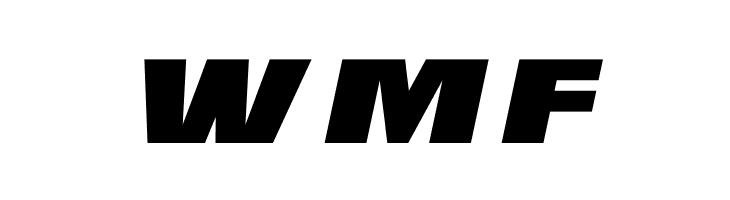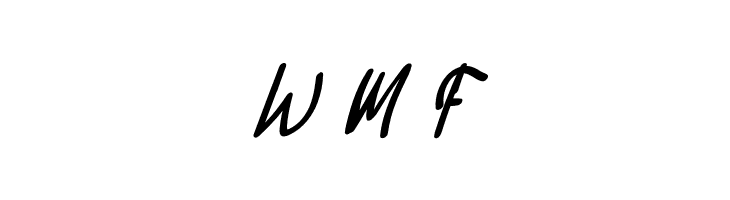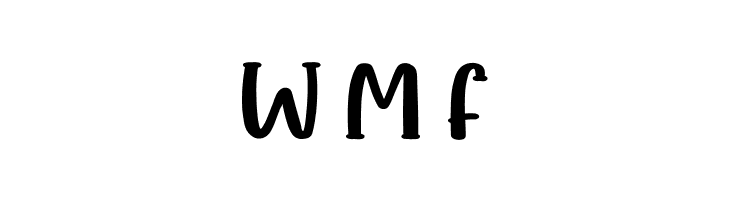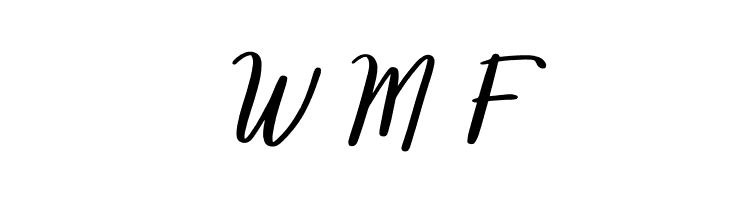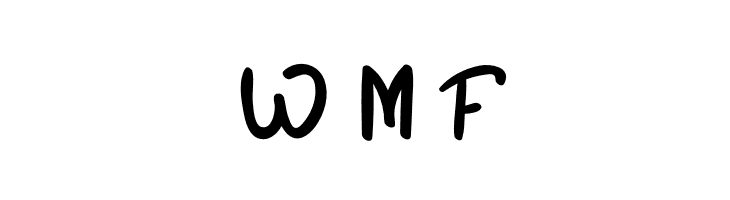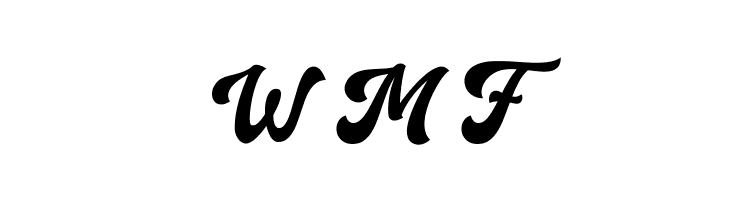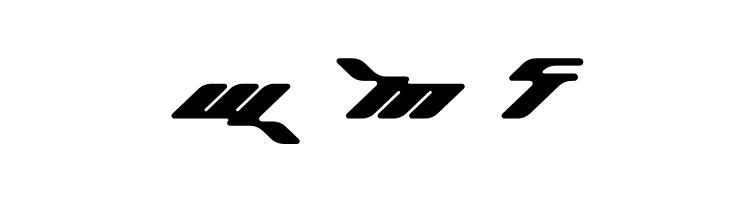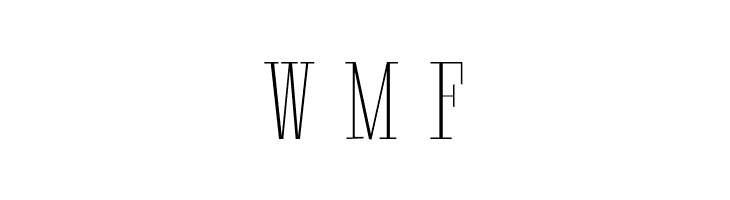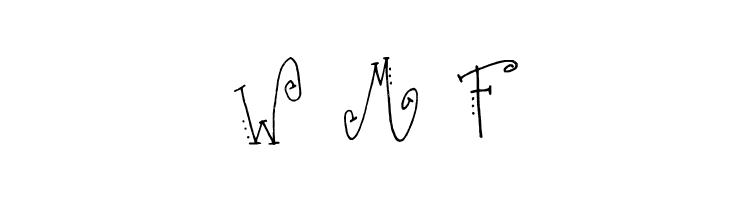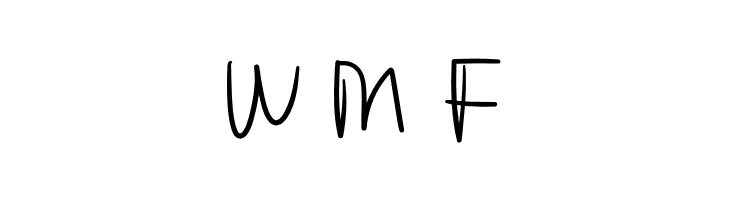
A lively and elegant script font with fluid, connected letters.
A refined serif font with thin strokes and elongated letterforms, exuding elegance.
A modern, geometric sans-serif font with clean lines and a minimalistic style.
A futuristic and geometric font with clean lines and symmetrical shapes.
A futuristic, italicized font with sleek, angular letters.
A bold, geometric font with a futuristic, robotic style.
A bold, italicized, futuristic font with geometric angles and a dynamic style.
A bold, playful font with rounded, hand-drawn characters.
A bold, textured font with a rugged, distressed appearance.
A bold, brush-style font with dynamic, hand-painted strokes.
A playful handwritten font with fluid strokes and a casual style.
A bold, graffiti-inspired font with a raw, hand-painted look.
A rough, hand-drawn font with a dynamic brush-like texture.
A playful, rounded font with a hand-drawn, casual style.
An elegant and decorative font with intricate swirls and flourishes.
A bold, flowing script font with elegant curves and swashes.
A bold, playful script font with a whimsical, hand-drawn style.
A bold, playful handwritten font with rounded, irregular letterforms.
A bold, rugged font with thick, irregular strokes and a distressed appearance.
An elegant and whimsical font with thin, elongated strokes and playful curves.
A bold, geometric font with sharp angles and cut-out sections for a modern look.
A bold, distressed font with a grunge aesthetic and rough edges.
A bold, expressive script font with a handwritten, fluid style.
A decorative and artistic font with intricate, flowing letterforms.
A dynamic, handwritten font with bold, fluid strokes and a playful, informal style.